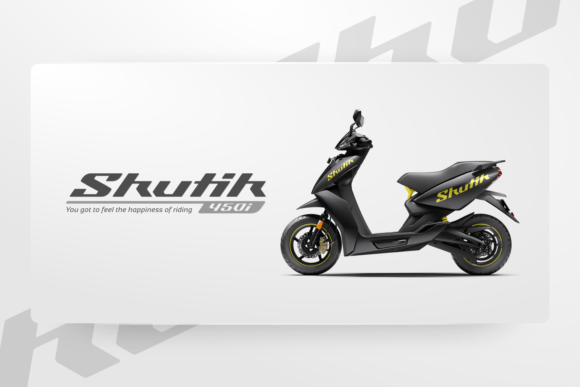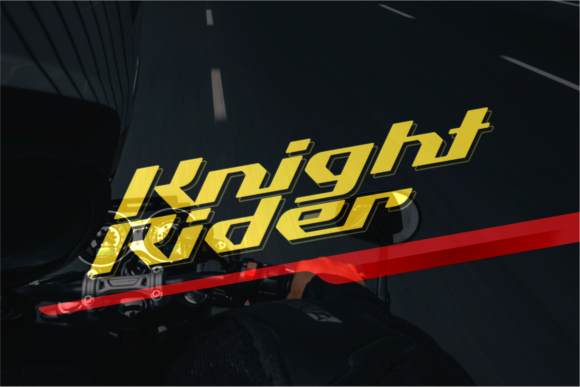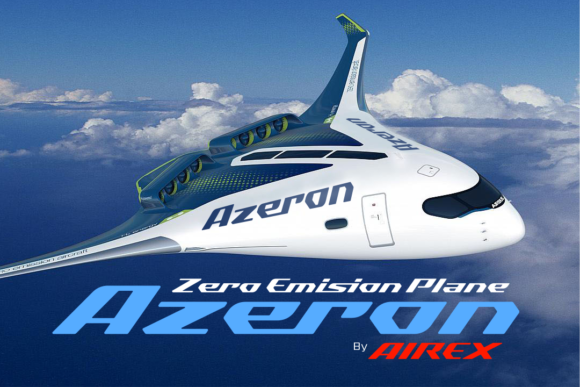
Introduction to Sketter Font
Sketter is modern display typeface inspired by aerodynamic designs.
Fall in love with its incredibly distinct and timeless style and use it to create spectacular designs This font is PUA encoded which means you can access all of the glyphs and swashes with ease.